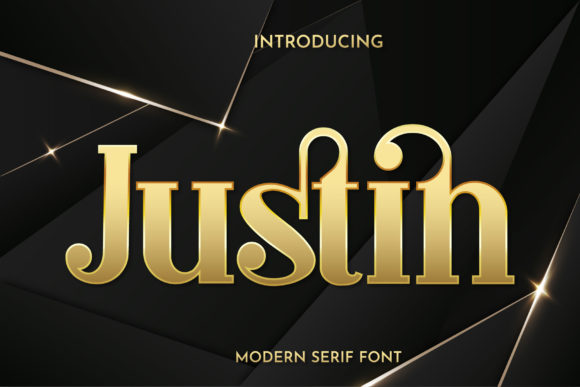
Step into a world of sophistication and elegance with Justin Font, a creation by Fox7—a name synonymous with brilliance in the font designing realm. Born from a meticulous fusion of classic serif strokes and a distinctively modern appeal, Justin Font beckons you to embark on a typographic voyage of boundless creativity.
Justin Font is a testament to the adage that simplicity holds the key to true beauty. Its clean lines, well-defined serifs, and optimal spacing manifest a font that effortlessly enhances the visual impact of your words, transforming even mundane text into an exquisite symphony of visual art.
Whether your canvas is a captivating magazine layout, a prestigious publication, an intimate wedding invitation, a professional business card, or even a trendy t-shirt design, Justin Font stands ready to elevate your creations to extraordinary heights. Its versatility knows no bounds, making it a treasure for designers seeking excellence in any medium.
Justin Font is more than just a collection of characters; it's an experience that ignites your imagination and empowers you to express yourself with unparalleled style. Its bold presence commands attention, while its delicate intricacies whisper tales of elegance and refinement.
With Justin Font as your typographic companion, you'll embark on a journey of creativity where boundaries dissolve and possibilities flourish. Its ability to blend seamlessly with diverse aesthetics and impart a touch of sophistication to any project makes it an indispensable tool for designers who dare to dream big.
Embrace Justin Font today and unlock the gateway to a world where typography transforms your designs into captivating works of art. Let your words dance across the page, imbued with a newfound grace and elegance that leaves an indelible mark on your audience.